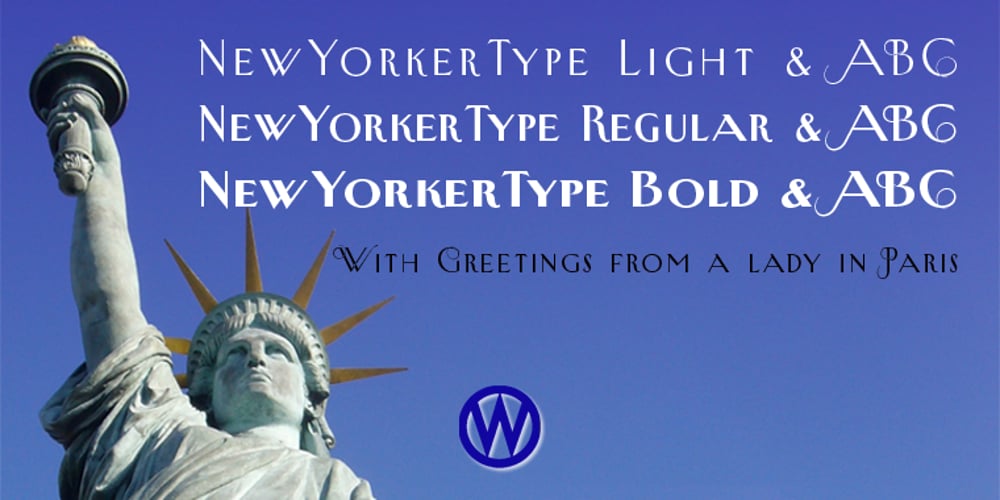
New Yorker Plus
New Yorker Plus font
New Yorker Plus Font Family was designed by Gert Wiescher and published by Wiescher Design. New Yorker Plus contains 10 styles and family package options. NewYorker Type was one of the first typefaces I tried my hand at in 1985. I meant it as a revival of the typeface used by the New Yorker magazine. I did not scan it in, I just looked at the type and redrew it completely by hand. So it is not just a copy, but rather a redesign. Only much later did I come to know, that there is a bundle of similar typefaces of that period. Rea Irvin’s design for New-Yorker magazine was just one of them, but the best. Lately I looked at the fonts and found, that they should be worked over, what I did. I added a Swashes set for each weight and generally cleaned up the design. Plus I made the complete Latin set, so that all European countries can use it. (Except for the Greeks and Russians, sorry!) Yours, sincerely once more honoring Rea Irvin, a great type- and magazine-designer. Gert Wiescher